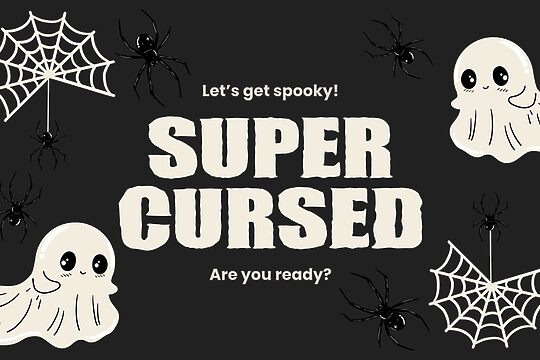
Super Chalk font by fsuarez913 is a free font that boasts a dynamic, illustrative, and energetic style with a casual and hand-drawn aesthetic. Its informal vibe is highlighted by its bold visual presence, making it suitable for educational and artistic contexts where creativity takes center stage.
Perfect for headers, posters, or any project that requires a standout element, Super Chalk can enhance educational materials, art class flyers, chalkboard menus, blog graphics, social media posts, DIY crafts, children’s books, personal projects, and album covers. It exudes a youthful and imaginative feel that hooks viewers instantly.